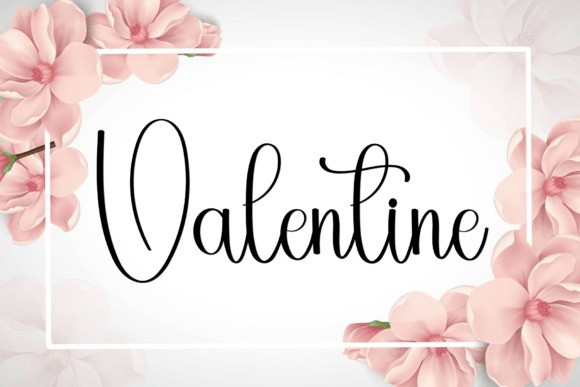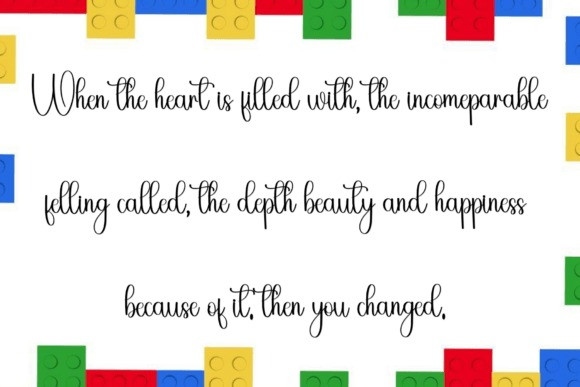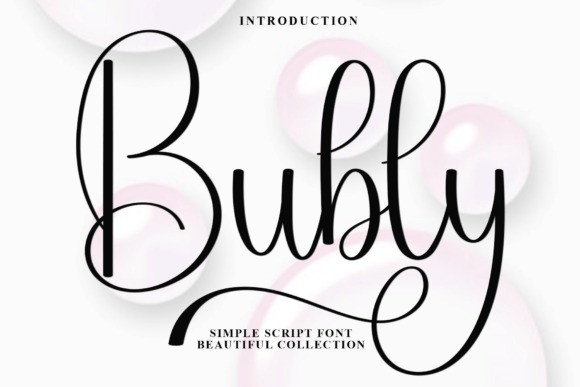
Bubly Script Typeface
Bubly Script Typeface, is a stylish beautiful and elegant font with a contemporary atmosphere and impeccable form, inspired by a timeless classic calligraphy. Balanced and varied, this font was designed to enhance the beauty of your projects.